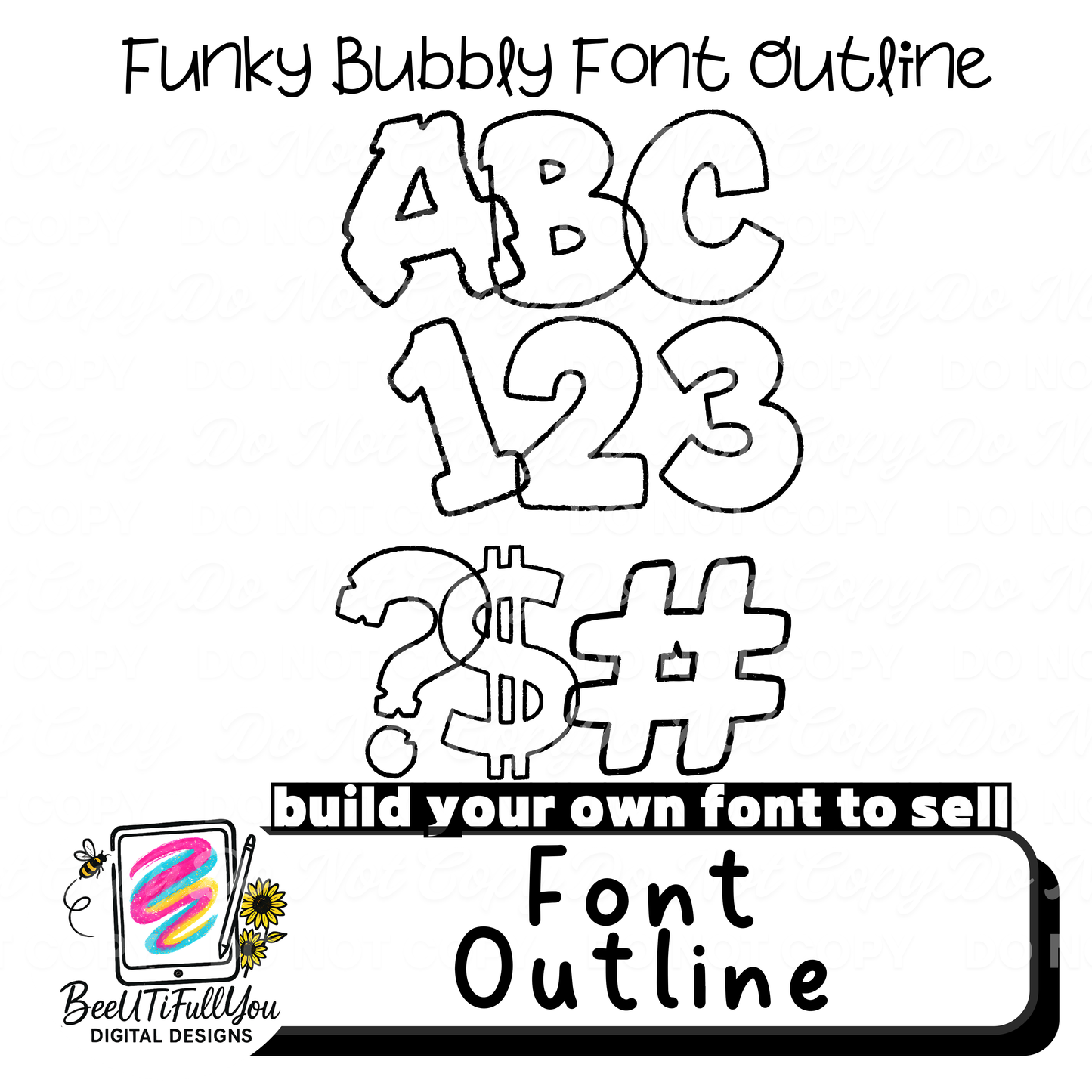
Funky Bubbly Font – OTF + Outline Alphabet Set
This listing is for a complete font package that includes an installable OTF font and a matching outline PNG alphabet, allowing you to type normally OR build custom font designs.
Perfect for creators who want flexibility, customization, and the ability to create unique fonts or lettering styles to sell on physical products.
This set allows you to:
Type text instantly using the OTF font
Manually design and customize lettering using the outline PNGs
Creating your own custom font styles
Physical products to sell
Use the outline PNG letters to:
Add colors, textures, or patterns
Create unique font variations
Build custom lettering styles
✨ Original Font by BeeUTiFullYou Digital Designs